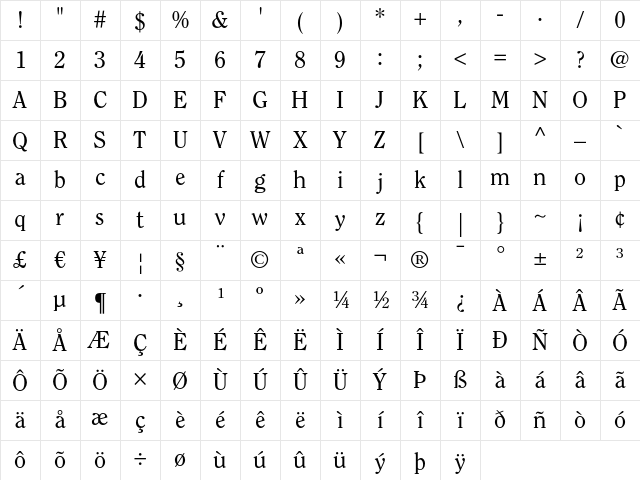
ITC Clearface LT Regular
Design Context for ITC Clearface LT
ITC Clearface LT is a composed and adaptable typeface that performs quietly and consistently across a wide range of design contexts. Its slender proportions lend an understated elegance to any composition.